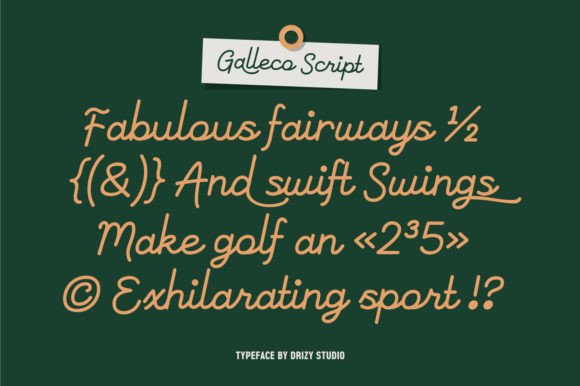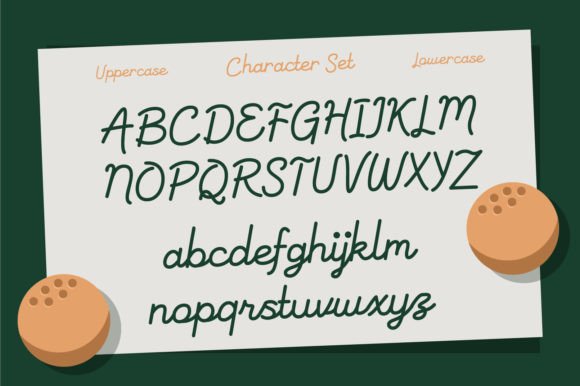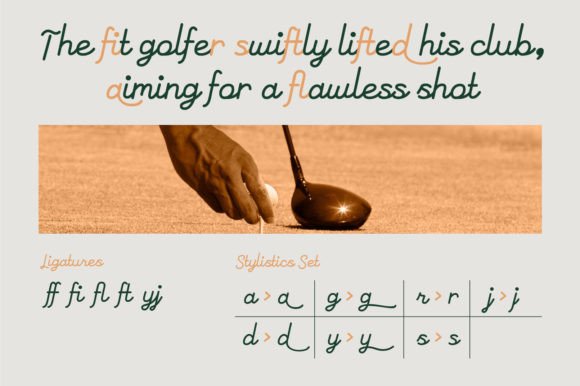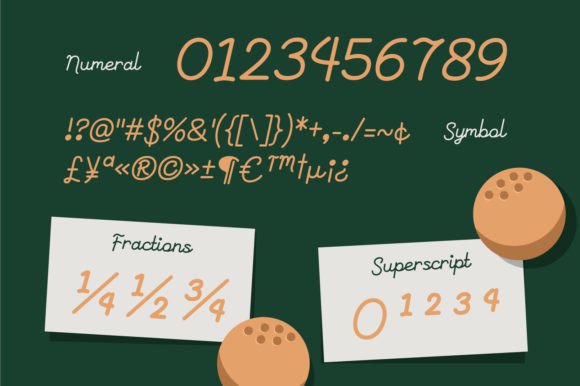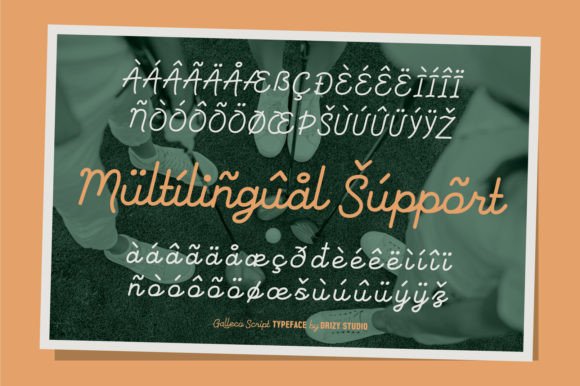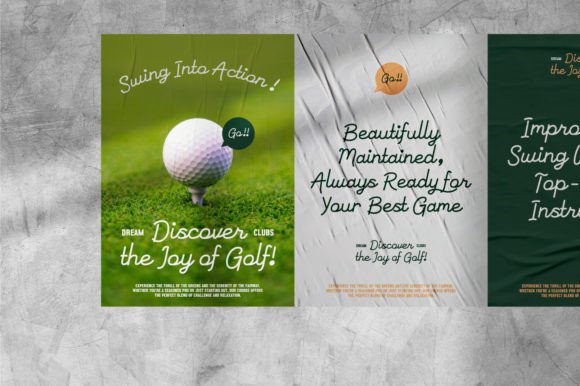
Introduction to Galleco Font
As a designer, there’s nothing quite like the thrill of finding the perfect font to elevate a project from good to great. Whether you’re working on a high-end branding campaign or a bespoke wedding invitation, the right font can make all the difference. I still remember the excitement I felt when I stumbled upon the Galleco Font – a stunning monoline cursive display font that exudes sophistication and vintage flair.
With its fluid, graceful strokes and elegant vibe, the Galleco Font is a game-changer for designers looking to add a touch of classic sportiness to their creative projects. Whether you’re looking for a high-quality design resource to take your branding to the next level or a free download to add a personal touch to a special occasion, the Galleco Font is an excellent choice. Its transparent background and versatile style make it perfect for a wide range of applications, from logos to promotional campaigns.
As a valuable addition to any designer’s toolkit, the Galleco Font is sure to become a go-to resource for creative projects of all kinds.
- Unique characteristics include elegant script and modern flair, making it perfect for branding and typography projects
Honest Review: Galleco Font
I recently had the chance to work with the Galleco Font and I must say it’s been a great addition to my design resource collection. The high quality of this font makes it perfect for any creative project I’m working on.
- What works well: ✨ The Galleco Font has a modern and elegant feel that can easily be customized to fit any design style. I also appreciate that it’s available for free download, which is always a plus.
Overall, I’m quite impressed with the Galleco Font. It’s a great design resource that can be used for a wide range of creative projects. While it has some limitations, the benefits far outweigh the drawbacks.
The Galleco Font is commonly used in graphic design, logo creation, and presentation design. Its high-quality design and transparent background make it an ideal choice for a variety of creative projects.